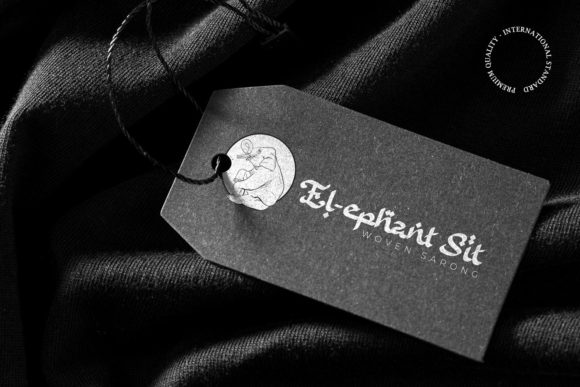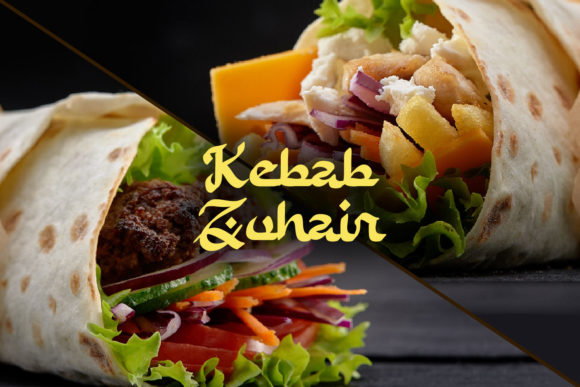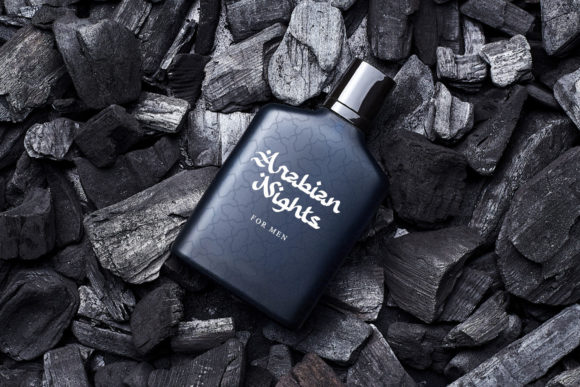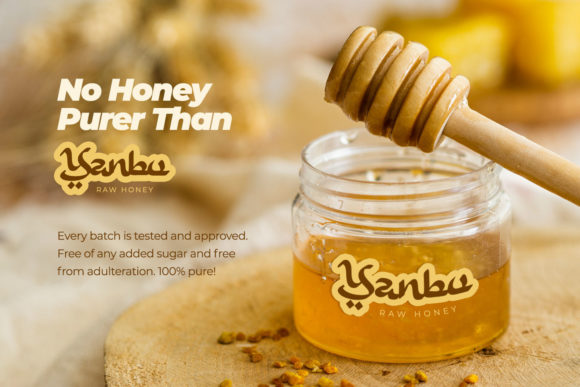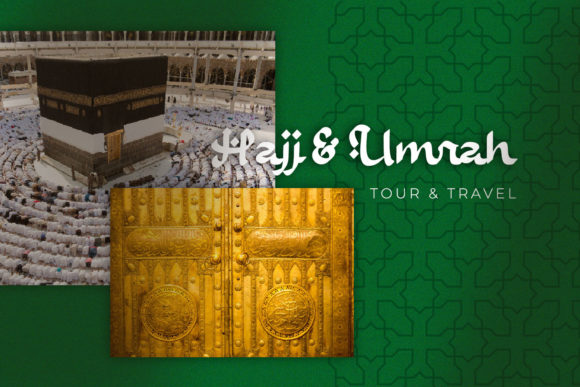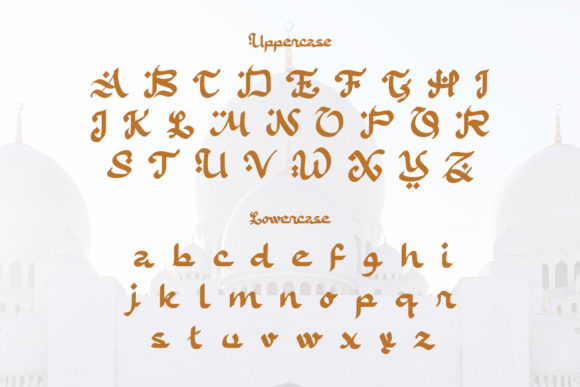
Introduction to Empire of Persia Font
Empire of Persia is a distinct and elegant display font.
It looks beautiful on a variety of designs requiring a personalized style This font is PUA encoded which means you can access all of the glyphs and swashes with ease.
Key Features of Empire of Persia Font